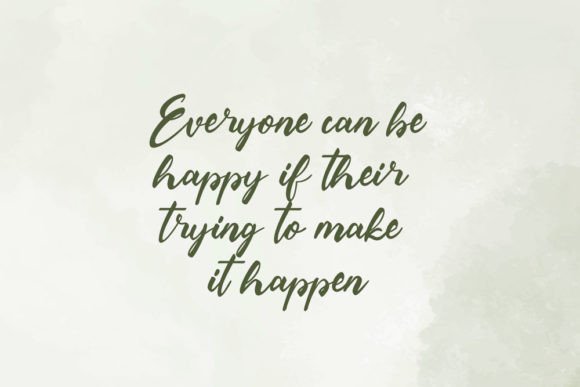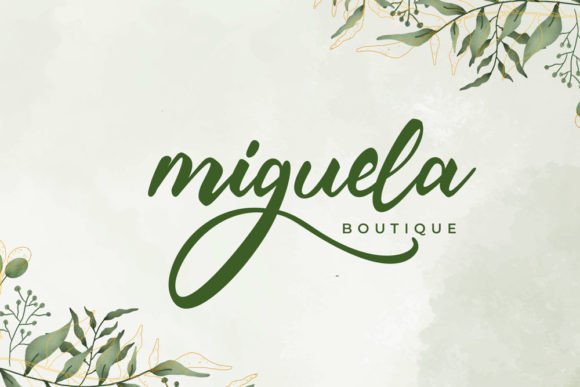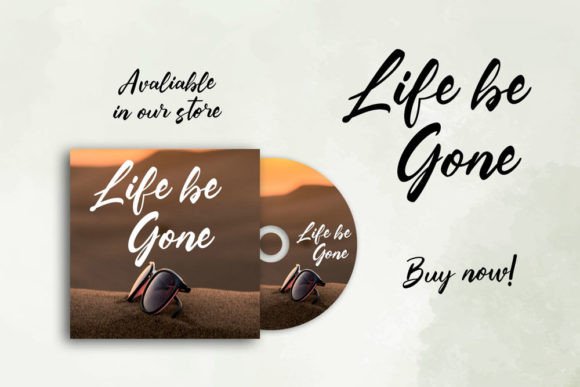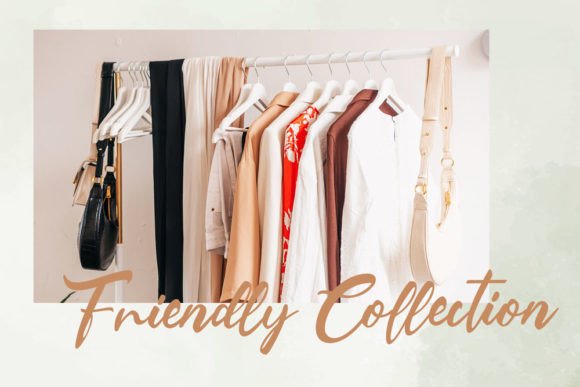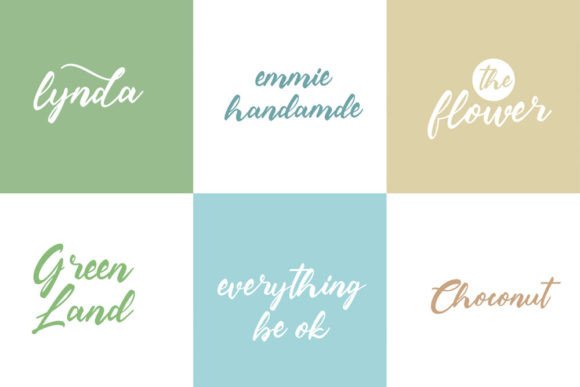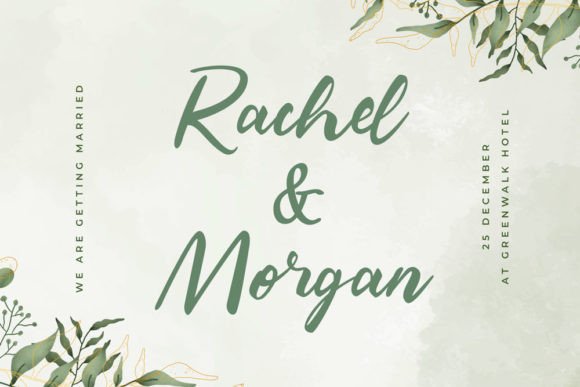
The Perfect Brushstroke for Your Next Creative Project
Do you remember that moment when you first discovered a font that perfectly captured the essence of your brand’s personality? For many designers, it’s a moment that sparks inspiration and sets the tone for a project. For me, it was the moment I stumbled upon the Besterline Font.
This beautiful, handwritten font is a game-changer for designers looking to add a touch of elegance and sophistication to their work. With its PUA encoding, you can access all the glyphs and swashes with ease, giving you the freedom to get creative. Whether you’re designing a logo, brand imagery, or social media posts, the Besterline Font is sure to make a lasting impression.
As a valuable addition to any designer’s toolkit, the Besterline Font offers endless possibilities for creative expression. Its unique style and versatility make it a must-have for anyone looking to elevate their designs and stand out from the crowd.
Besterline Font Key Features
- Font Style: Script Font
- Unique Characteristics: Hand-drawn design with elegant, cursive lines and flourishes, ideal for creative and artistic projects
Besterline Font Review
I recently had the chance to work with the Besterline font, and I have to say it’s been an interesting experience. Overall, I think this font has some great qualities, but also some limitations that might make it less suitable for certain projects.
- Unique aesthetic: Besterline has a distinct, modern feel that sets it apart from other fonts. It’s perfect for projects that need a touch of sophistication and elegance.
- High legibility: This font is very easy to read, even at smaller font sizes. It’s a great choice for body text or headings where clarity is key.
- Good for digital use: Besterline looks great on screens, making it a great choice for websites, apps, or digital marketing materials.
Limitsations ⚠️
- Limited versatility: While Besterline is great for modern projects, it might not be the best choice for more traditional or vintage-inspired designs. It’s a bit too sleek and minimalist for those styles.
- No small caps: Unfortunately, Besterline doesn’t include small caps, which can be a drawback for projects that require them.
- Not ideal for large blocks of text: While the font is highly legible, it can start to feel a bit monotonous when used for large blocks of text. It’s best used in moderation.
Overall, I think Besterline is a solid choice for the right project. It’s a great font for modern designs that need a touch of elegance and sophistication. Just be aware of its limitations, and use it thoughtfully to get the best results.
Tips for Getting the Most Out of Besterline Font
For best results, use Besterline Font in combination with high-quality images and graphics. Experiment with different font sizes, colors, and styles to achieve a unique and eye-catching design.
Besterline Font is ideal for use in:
- Modern business logos and branding
- High-end fashion and beauty design
- Luxury product packaging and labeling
Alternatives to Besterline Font for Designers
Playfair Display is a luxurious, elegant serif font that is ideal for use in high-end branding, luxury goods, and fashion. It features intricate details and ornate flourishes, making it perfect for creating a sense of sophistication and refinement.
Comparison to Besterline Font: While Besterline Font has a similar elegant feel, Playfair Display is more ornate and detailed, making it better suited for use in luxury branding and high-end design projects.
Merriweather is a classic, traditional serif font that is ideal for use in body text, headlines, and editorial design. It features a clean, elegant design that is perfect for creating a sense of balance and harmony.
Comparison to Besterline Font: While Besterline Font has a similar classic feel, Merriweather is more straightforward and less ornate, making it better suited for use in body text and everyday design projects.